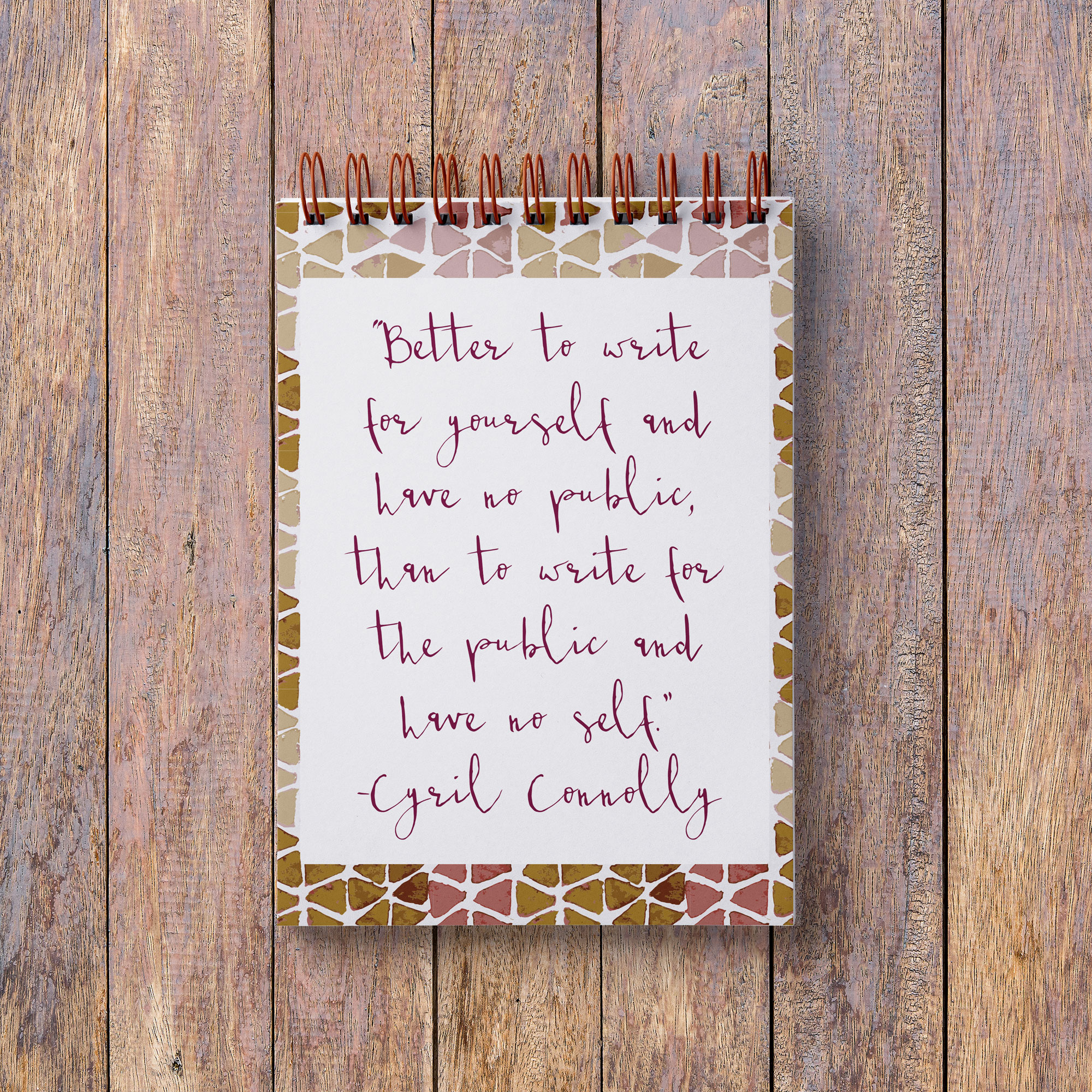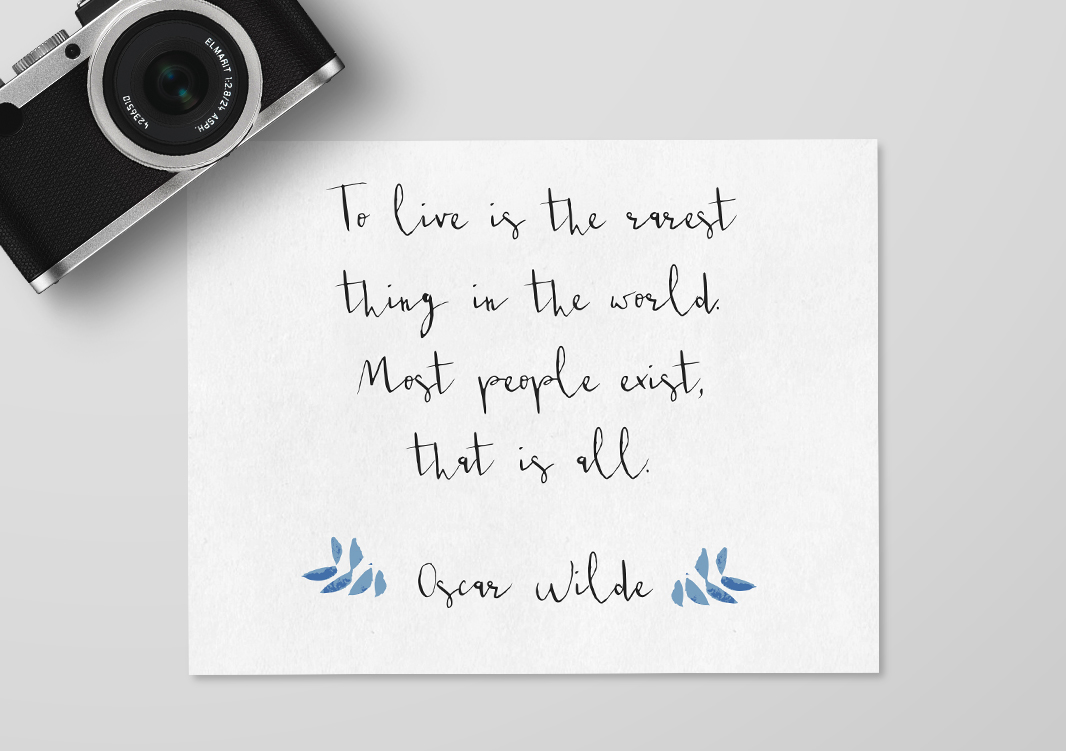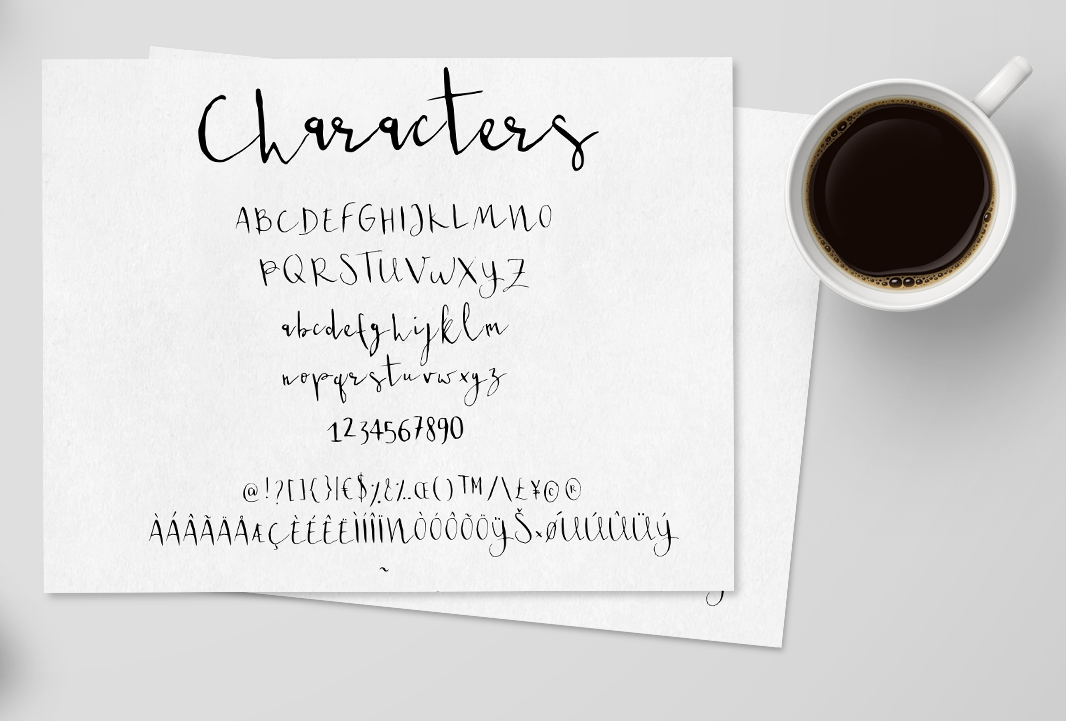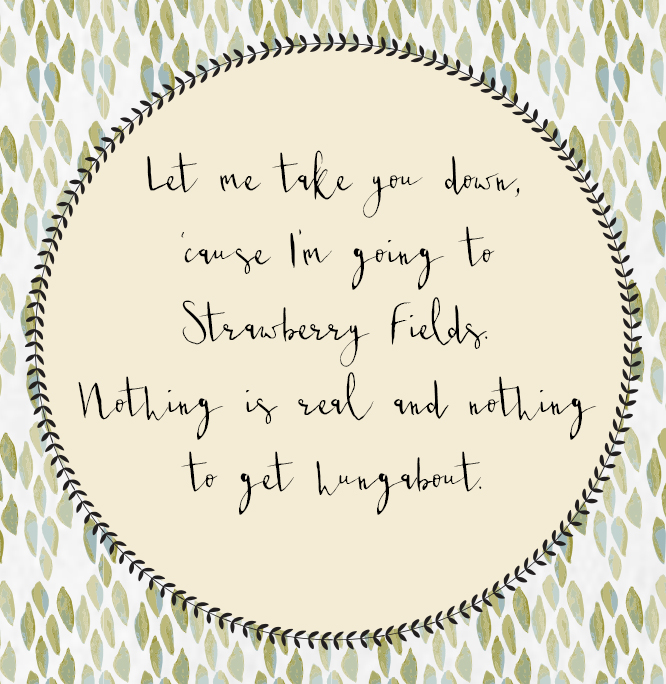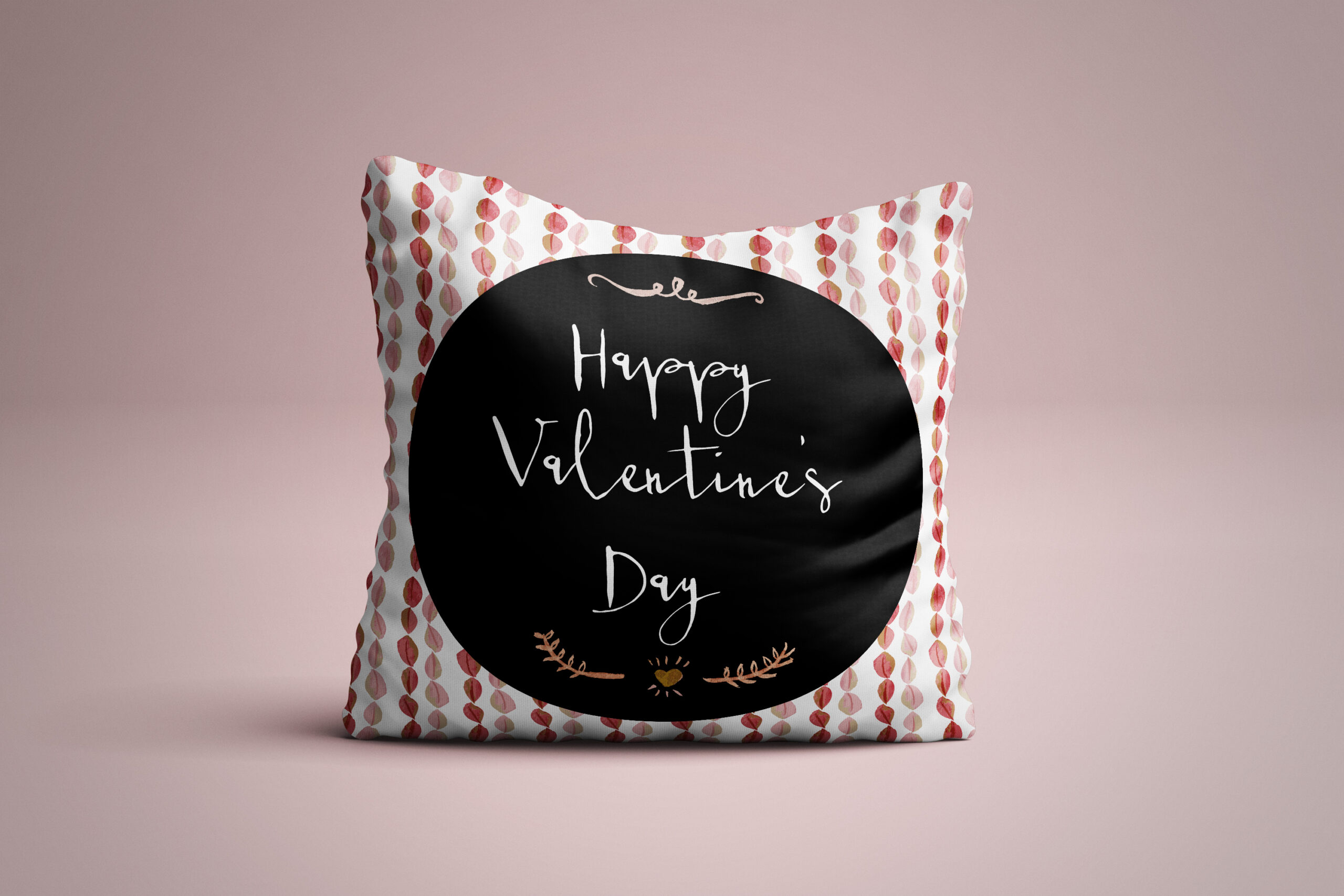
Drucci Font
About Drucci Font
Drucci is a handwritten font created by Silvia Porcu.
It’s has an imperfect style with a true personal written feel. It’s perfect for creating personal-style designs. Because Drucci is clean and smooth, it works well for both professional and personal looking designs.